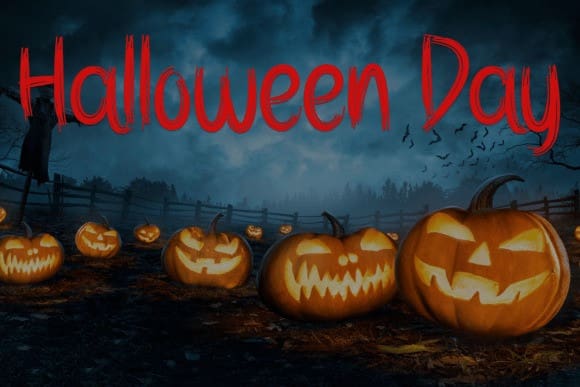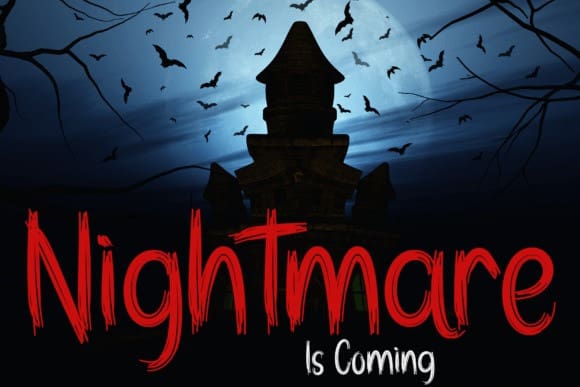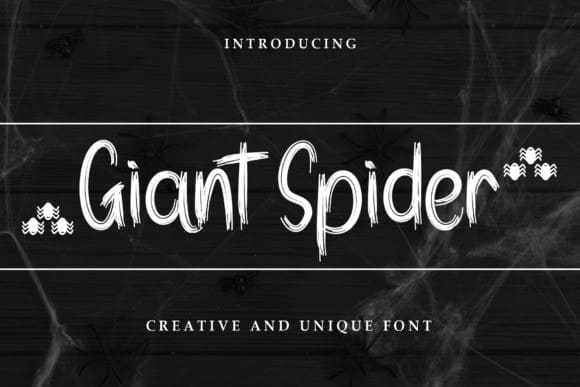
Giant Spider Font
Giant Spider Font is a bold and unique handwritten display font. Cute and fun, this font is ideal for writing posters, banners, cards, or any other design that might need a fun touch!